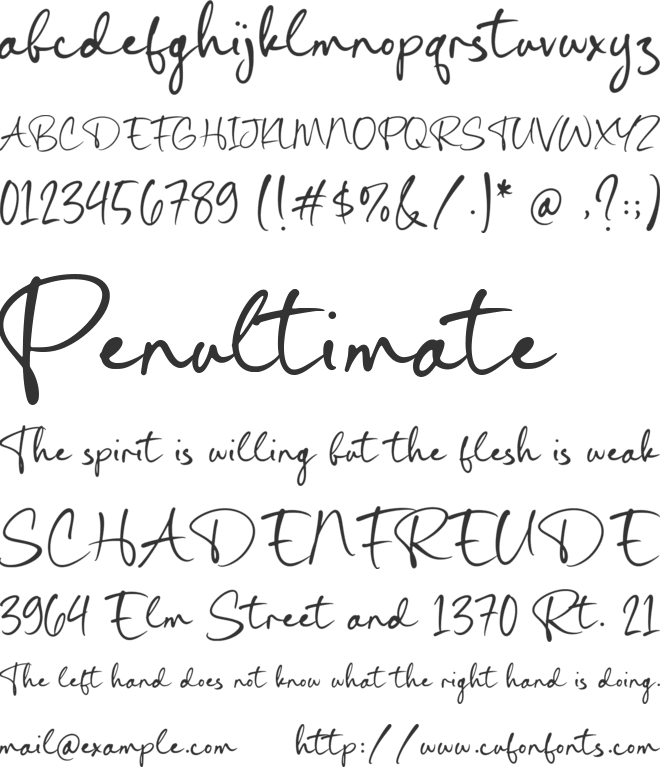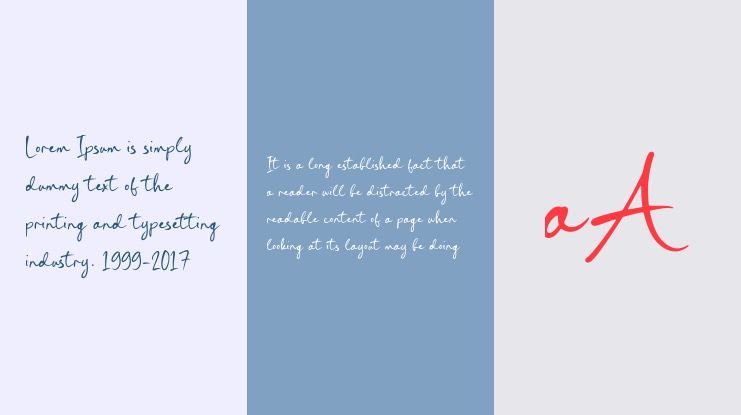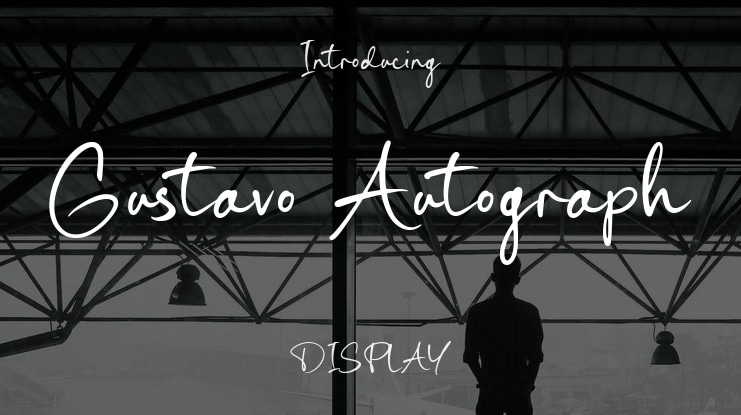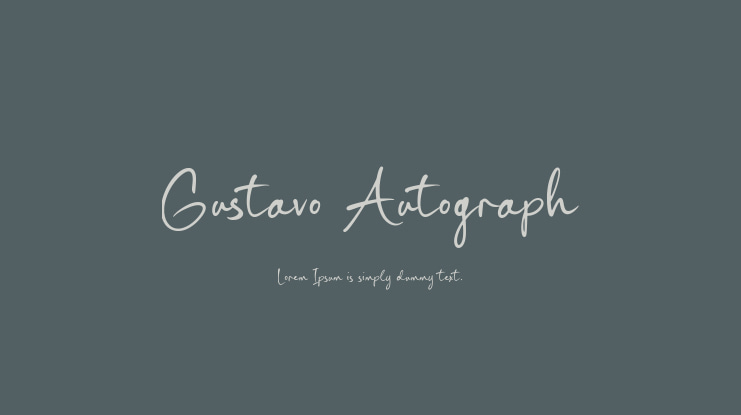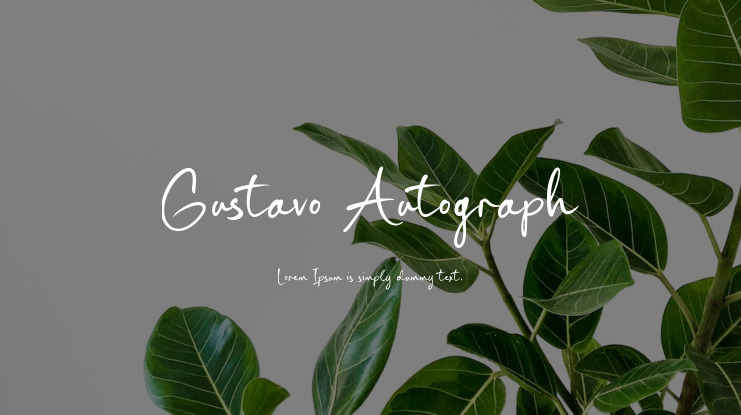
Gustavo Autograph Font
Introducing the Gustavo Autograph Font by Timurtype Studio!
Gustavo Autograph is a delightful hand-lettered font that embodies whimsy and charm. Its playful and unique letterforms capture a carefree and creative spirit, perfect for adding a magical touch to greeting cards, posters, or children's book covers. Embrace the enchanting character of this font to infuse your designs with wonder and creativity.